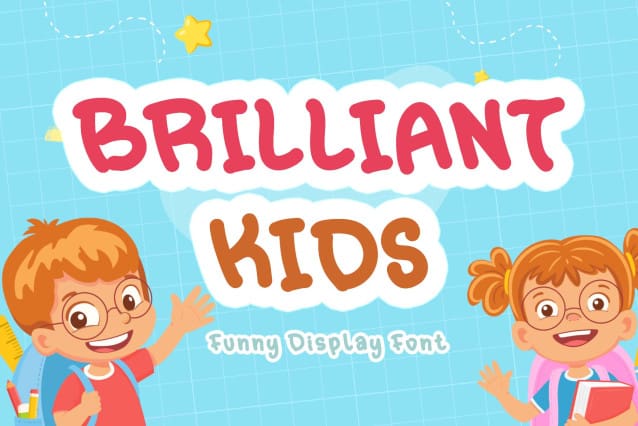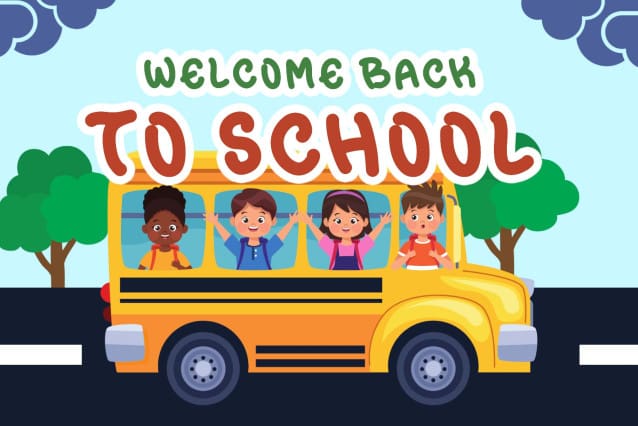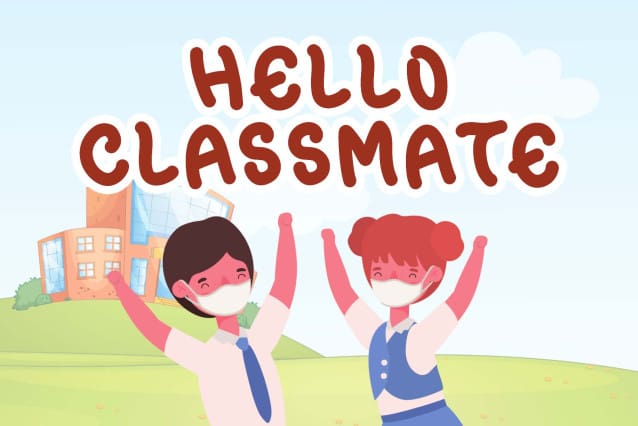
Brilliant Kids Font
Brilliant Kids Font is a cute display font. This font is equipped with uppercase, lowercase, numerals, punctuations and multilingual support. Very suitable for back to school, graduation, summer, holiday, Christmas, 4th of July, autumn, display, kids, children fonts and others.